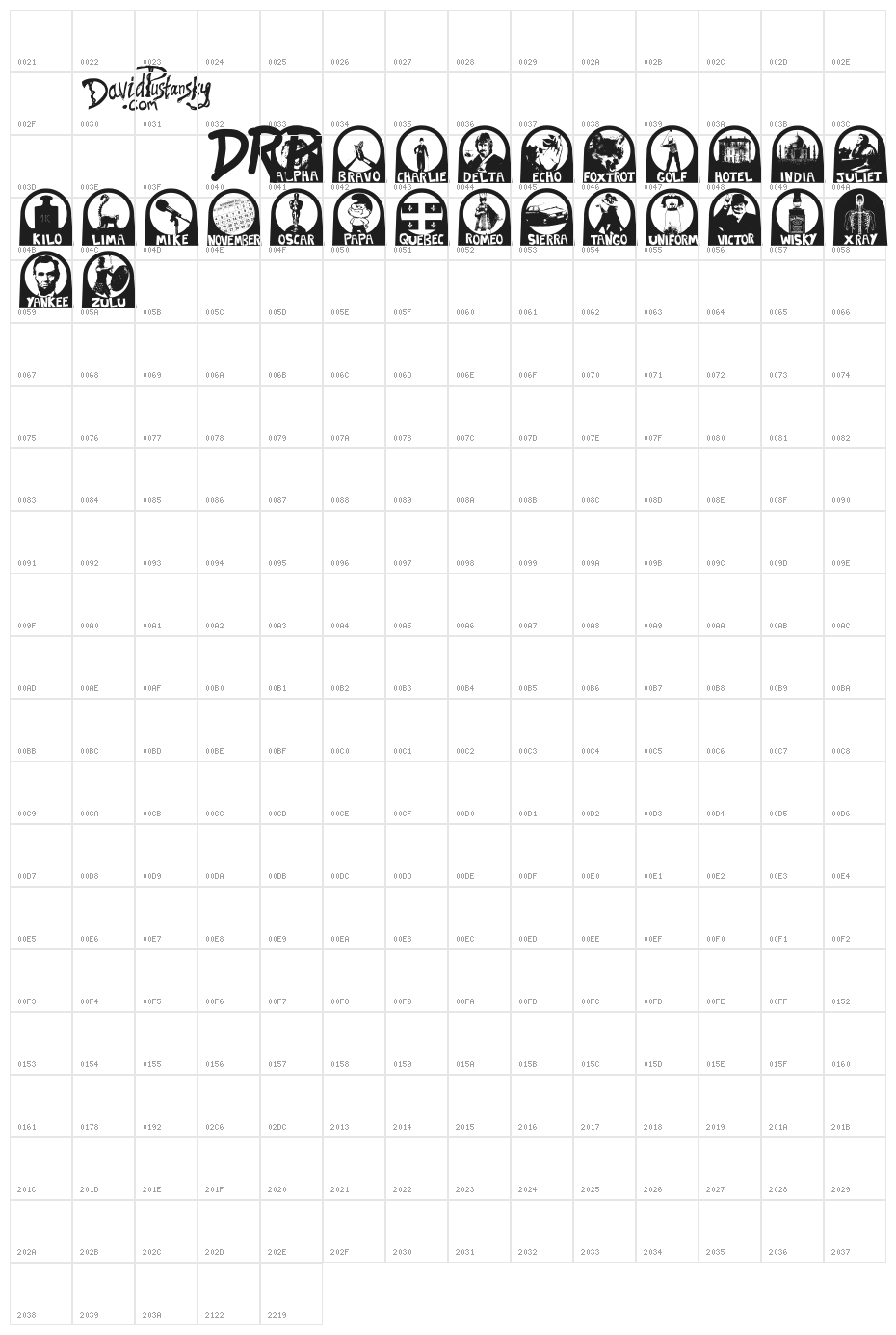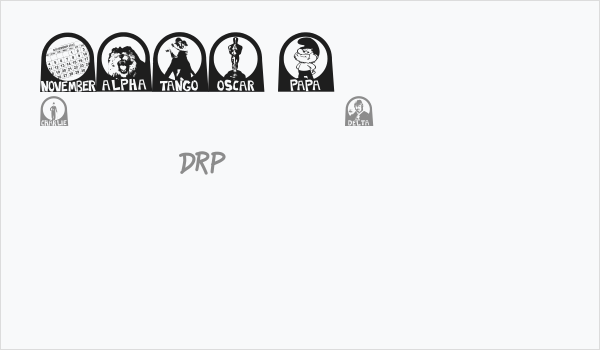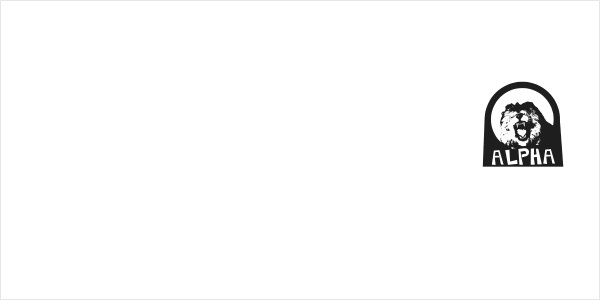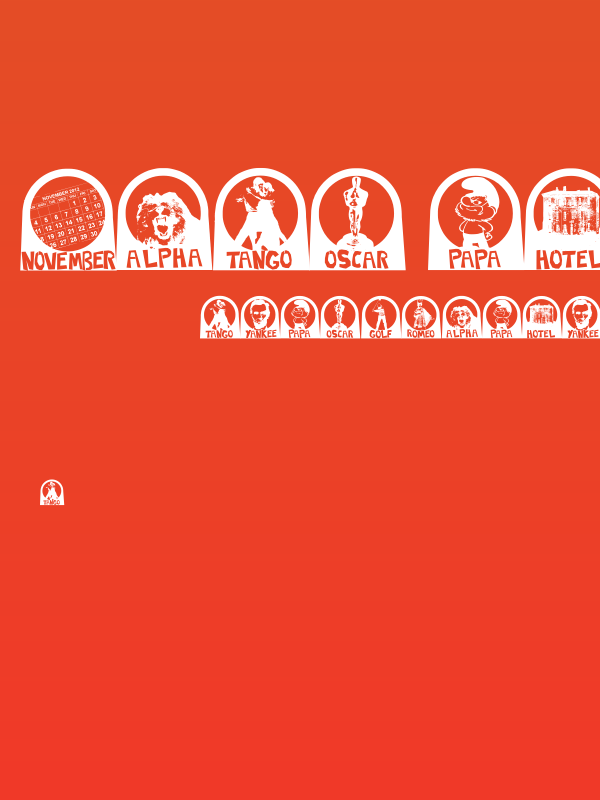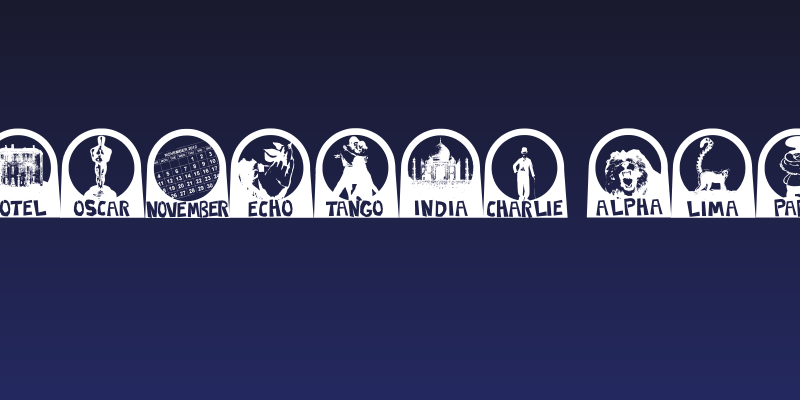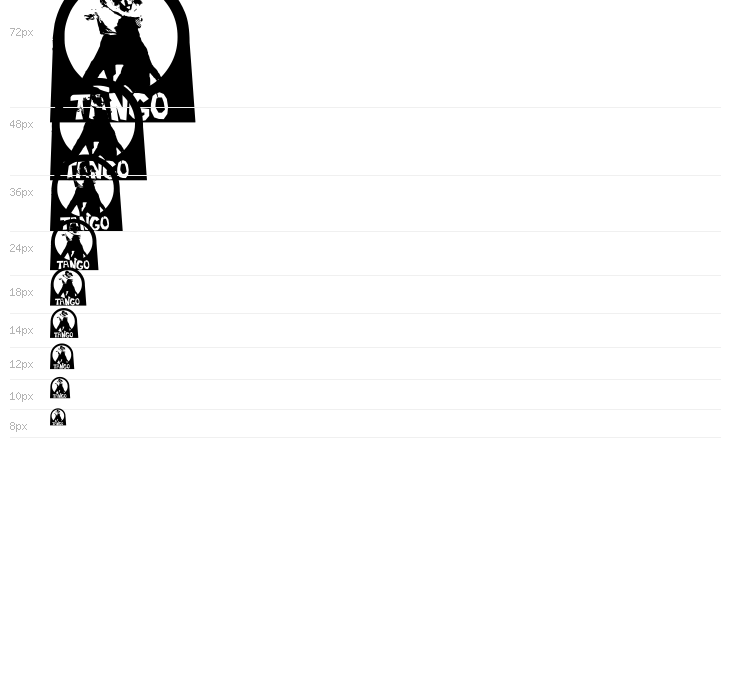
NATO Phonetic Alphabet Font
NATO Phonetic Alphabet Description
This font is a creative and illustrative representation of the NATO phonetic alphabet, where each letter is accompanied by a unique graphic that visually represents the corresponding word. The style is bold and playful, with each character enclosed in a circular frame, adding a cohesive and structured appearance. The illustrations are detailed and imaginative, providing a visual narrative that complements the phonetic alphabet. The font is highly decorative, making it suitable for projects that require a strong visual impact and a touch of whimsy.
Use CaseLogos, Posters, Educational Materials
Proposed ProjectsIdeal for educational materials, creative posters, themed events, and artistic projects that require a playful and engaging visual style.